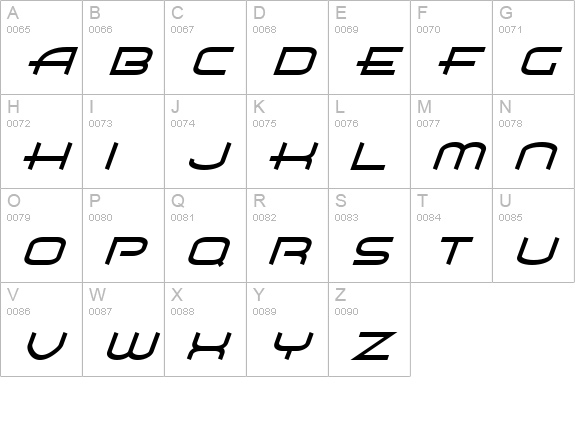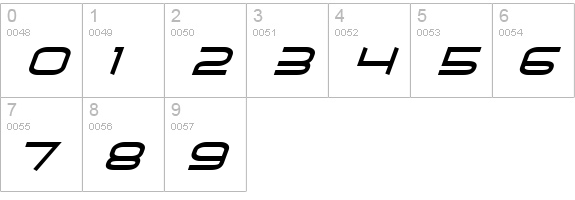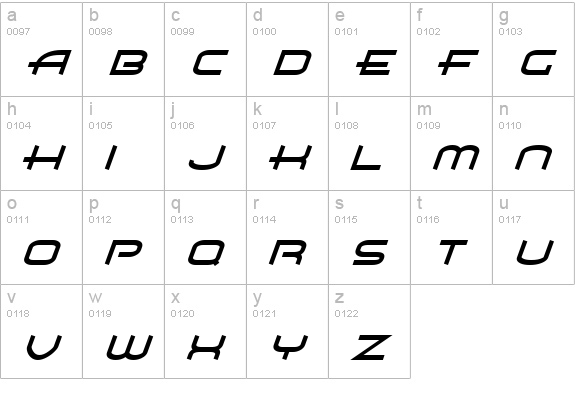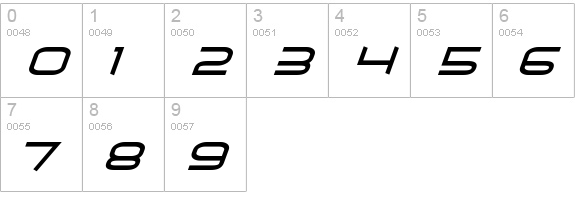
Air Flow BTN Oblique Font Details
Air Flow BTN Oblique is a distinctive, italic variant in the Air typeface family \xE2\x80\x94 well suited to design and typography projects.
Air Flow BTN Oblique is a modern and stylish font that exudes a sense of movement and sophistication. Its sleek and angular design gives it a dynamic appearance that is perfect for projects that require a touch of elegance and flair. The slanted style of the letters adds a sense of energy and excitement to any text. Whether used for headers, branding, or graphic design, Air Flow BTN Oblique is sure to make a bold statement. And the best part? Air Flow BTN Oblique is available for free download at FontsMarket.com. So you can easily add this versatile font to your collection without any cost. Don't miss out on the opportunity to enhance your designs with this eye-catching typeface that will surely elevate your work to the next level.